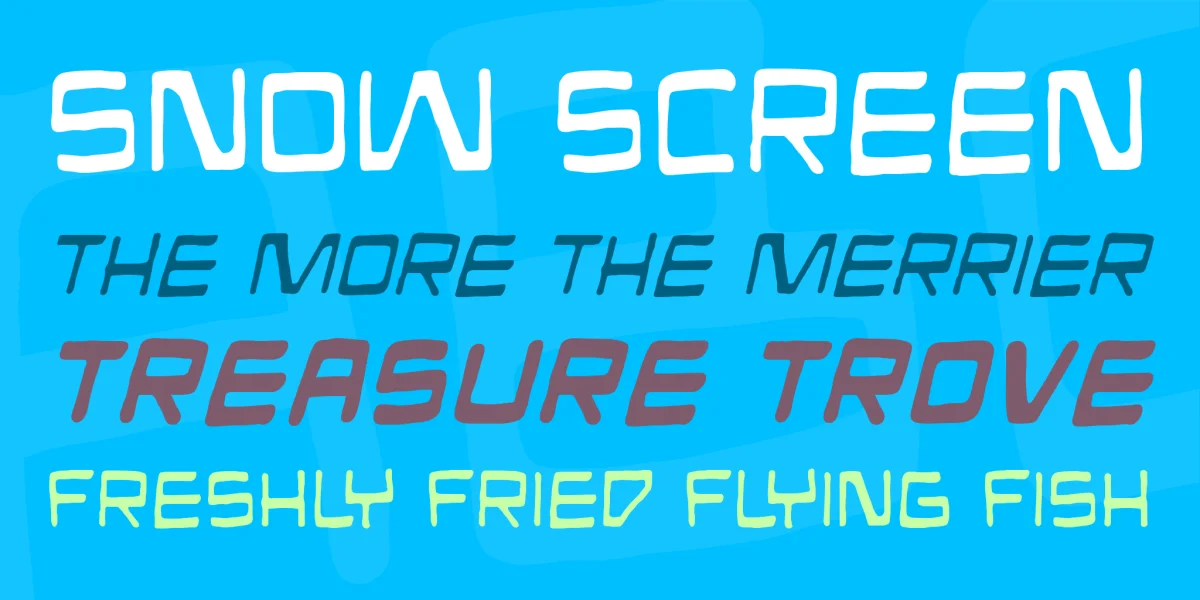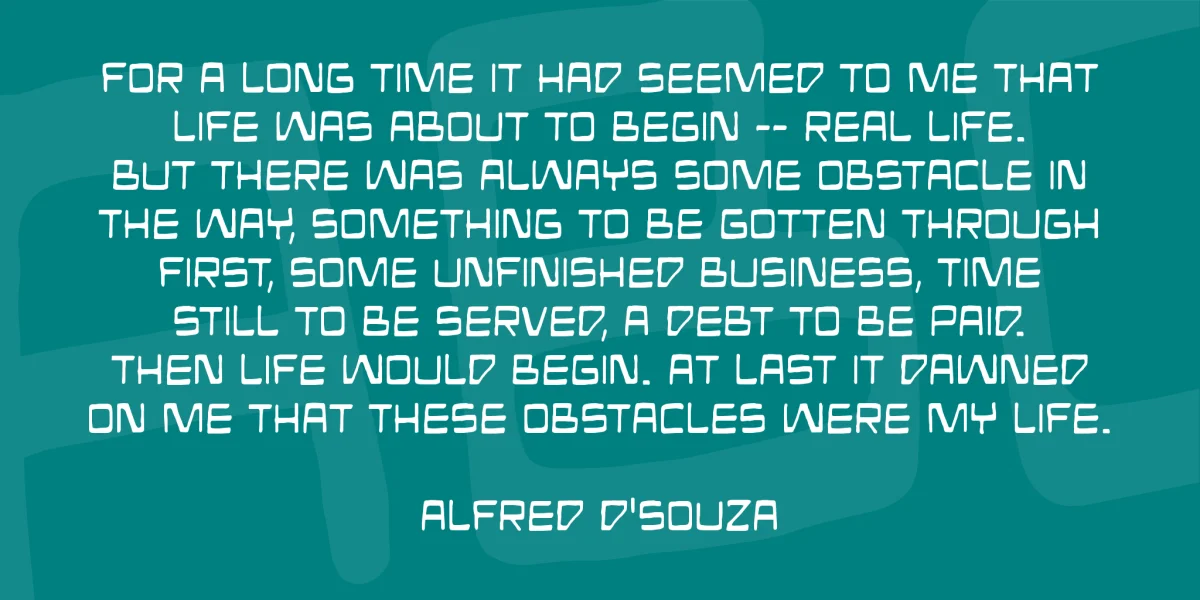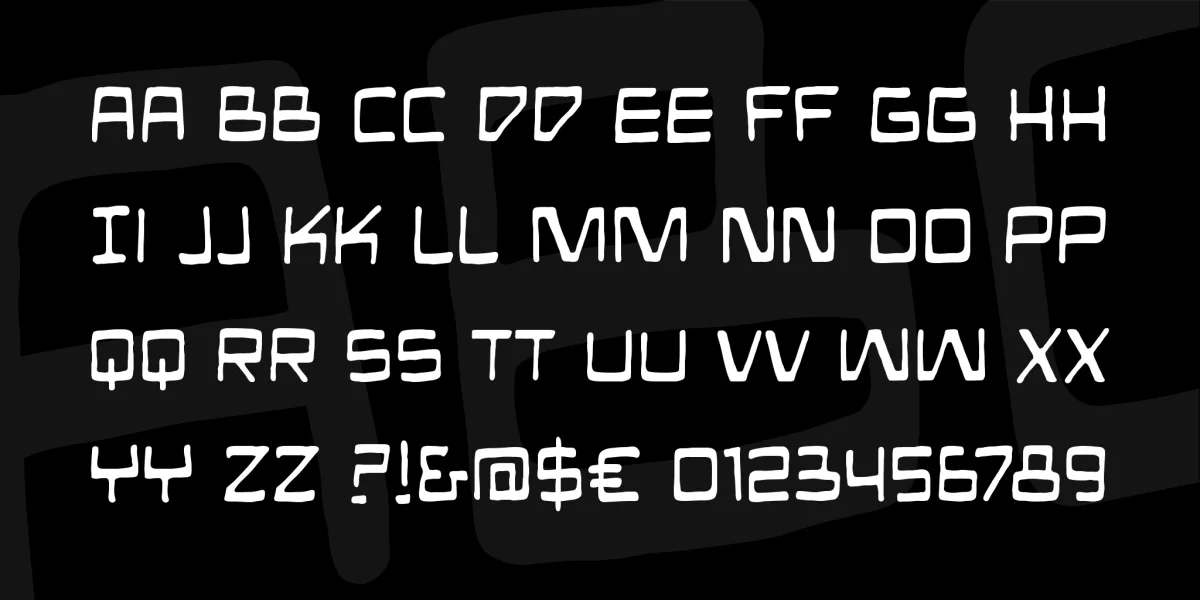
MANDROID BB is a robotic dialogue font with hand-lettered imperfections. This way, it better compliments your standard dialogue fonts! Comes with Regular, Italic and Bold.